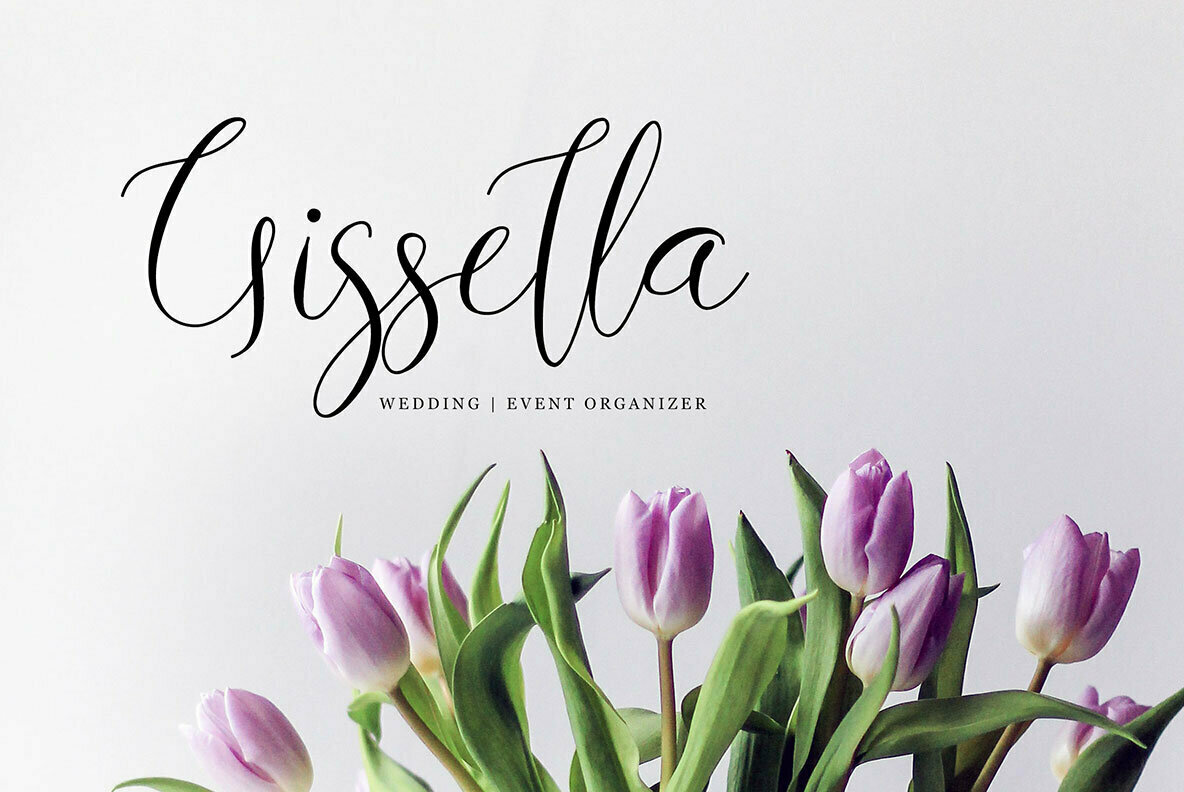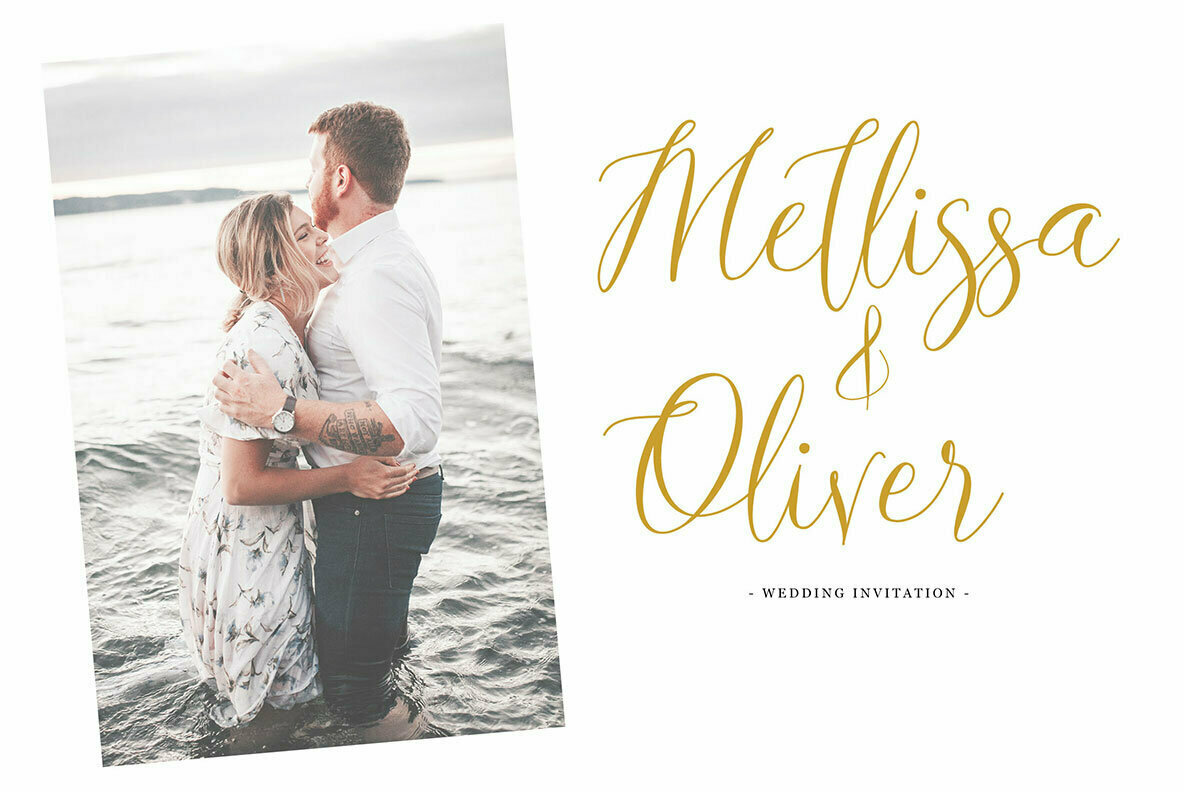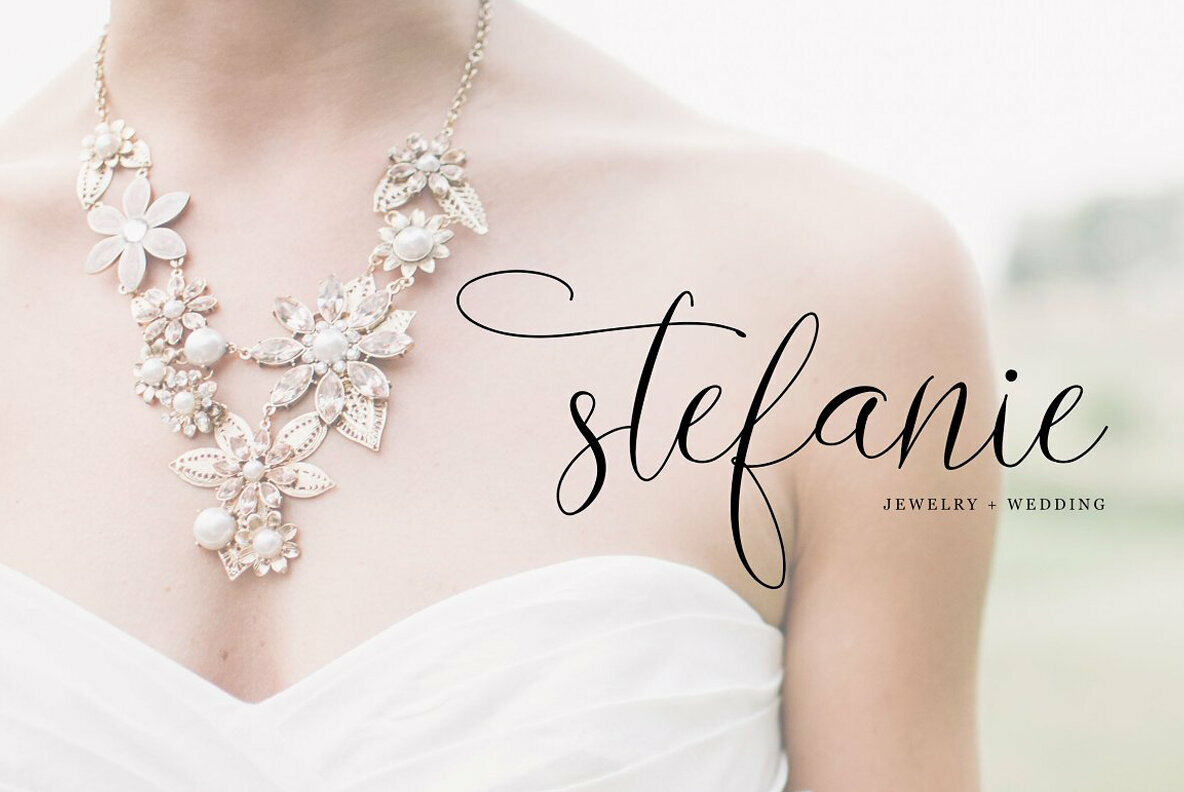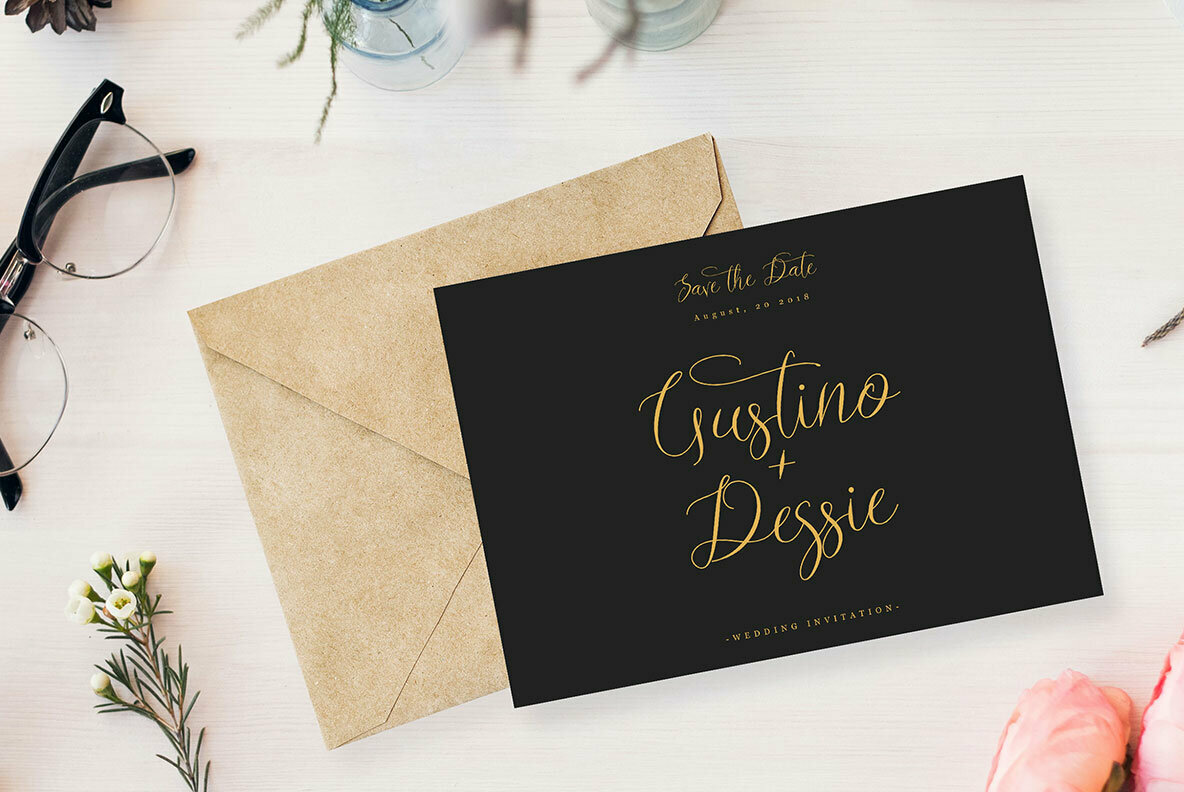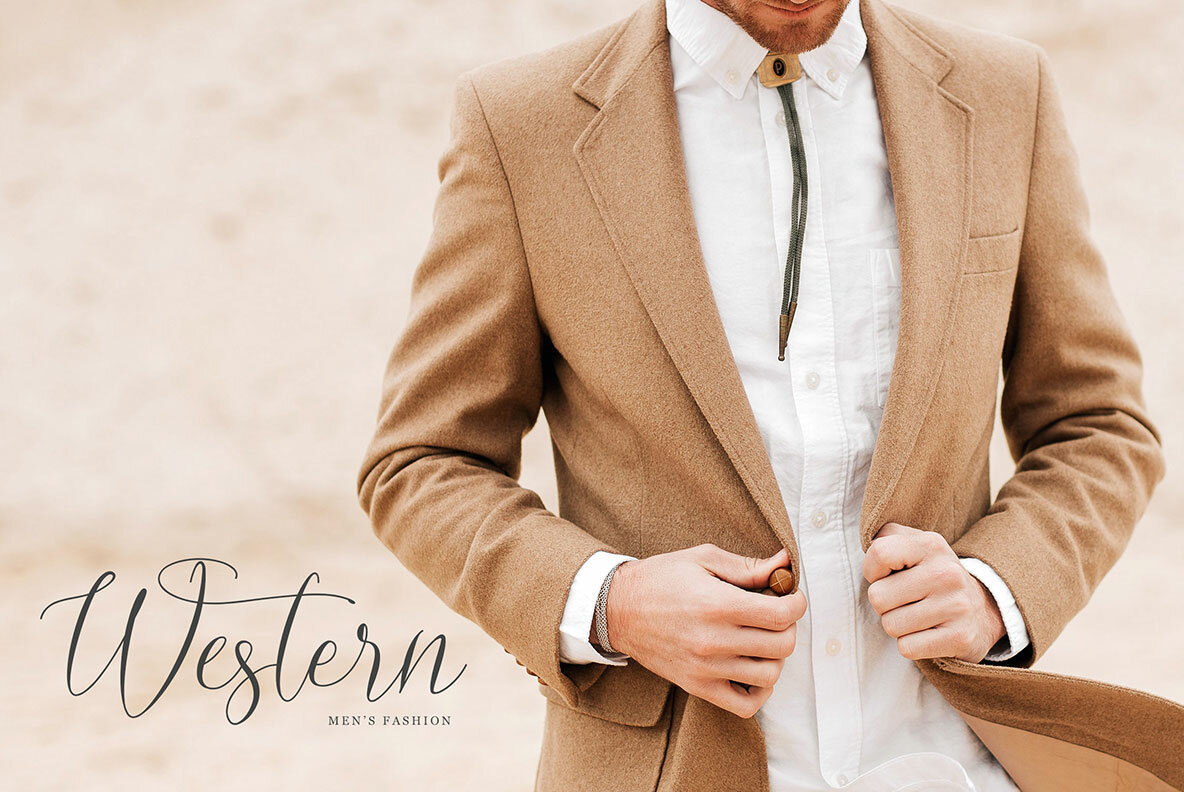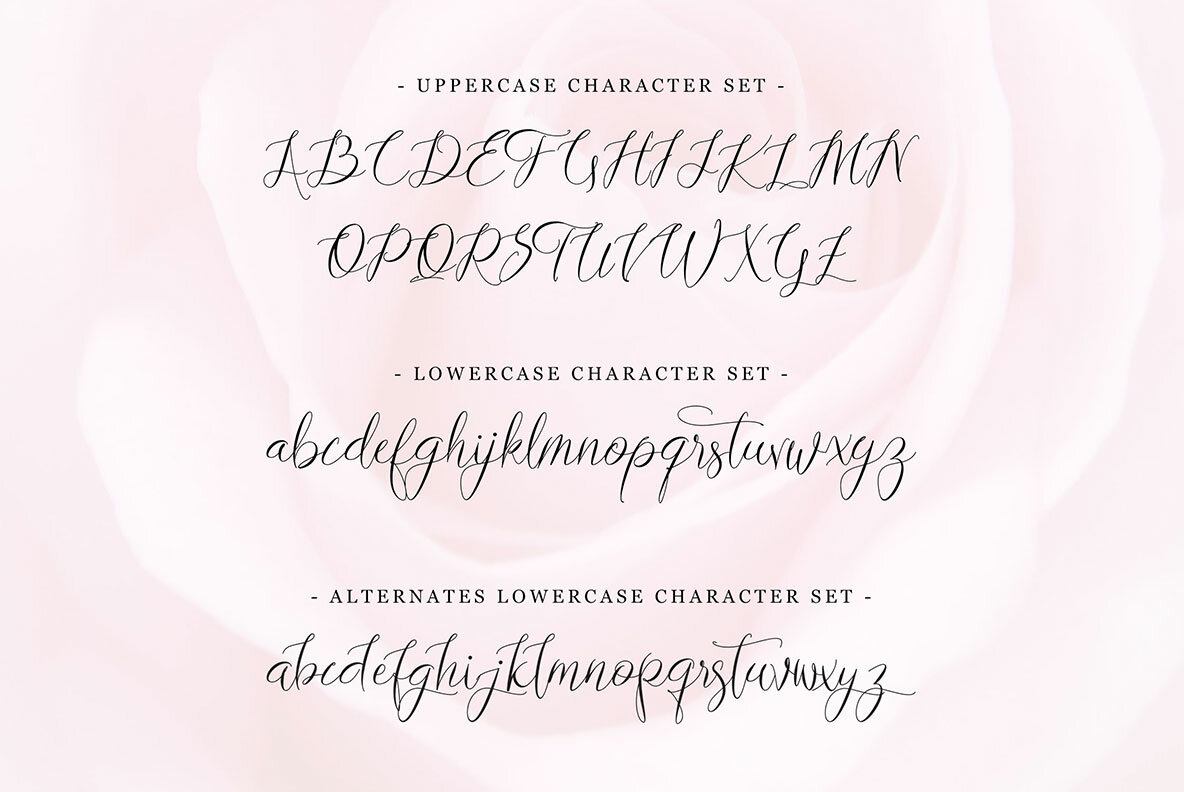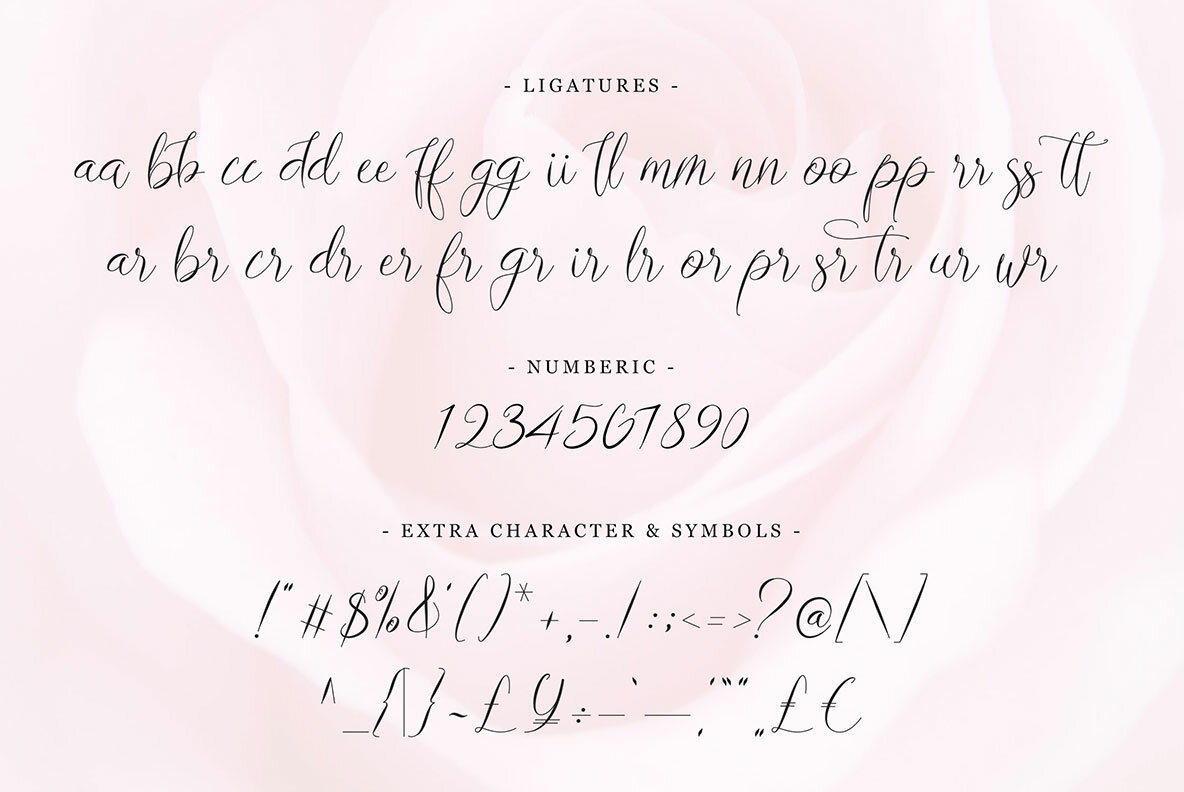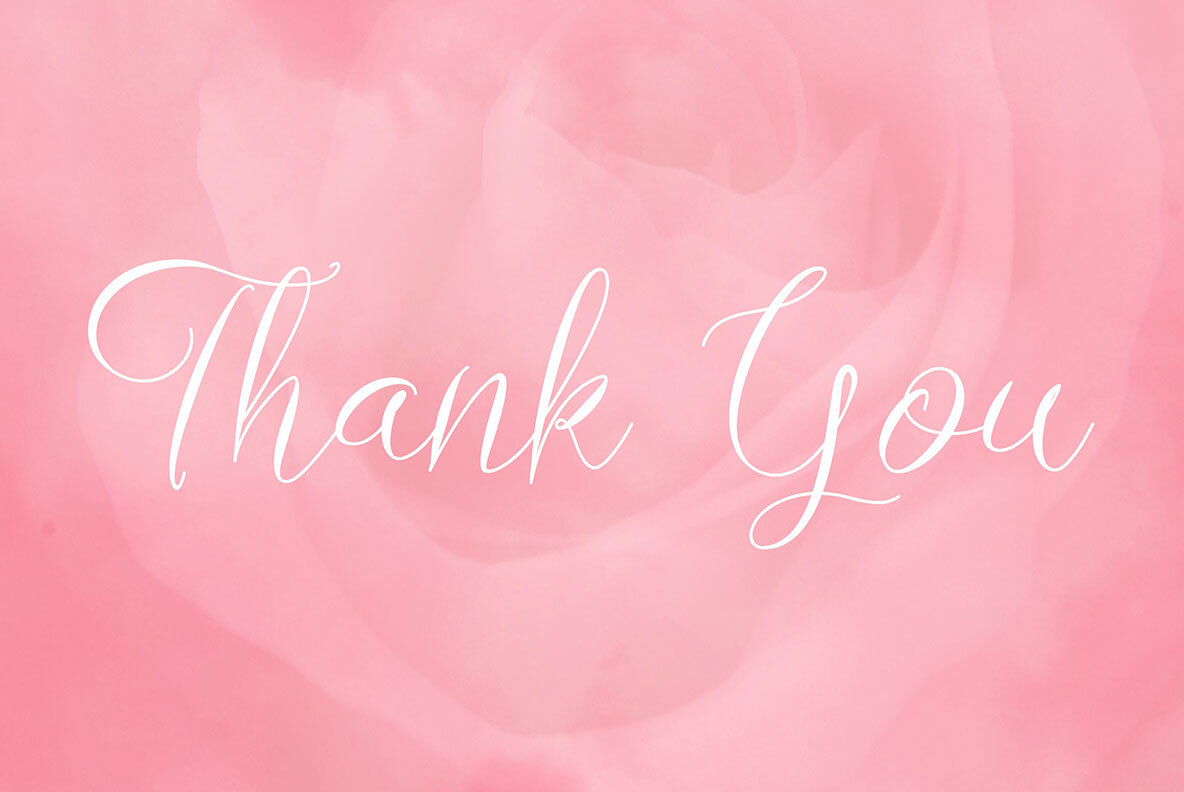
Lovestrong Font
Lovestrong
Lovestrong Script exudes elegance and modernity, making it an exceptional choice for diverse designs. This handwritten font provides a touch of class while remaining highly readable and stylish. It seamlessly integrates into both professional and creative projects with ease. From crafting stunning signatures to designing unique logos, Lovestrong adapts to various formats. Its versatility extends to wedding invitations, fashion branding, business cards, and beyond, offering a sophisticated feel to every design endeavor.Lovestrong Script: Elegant Handwritten Font